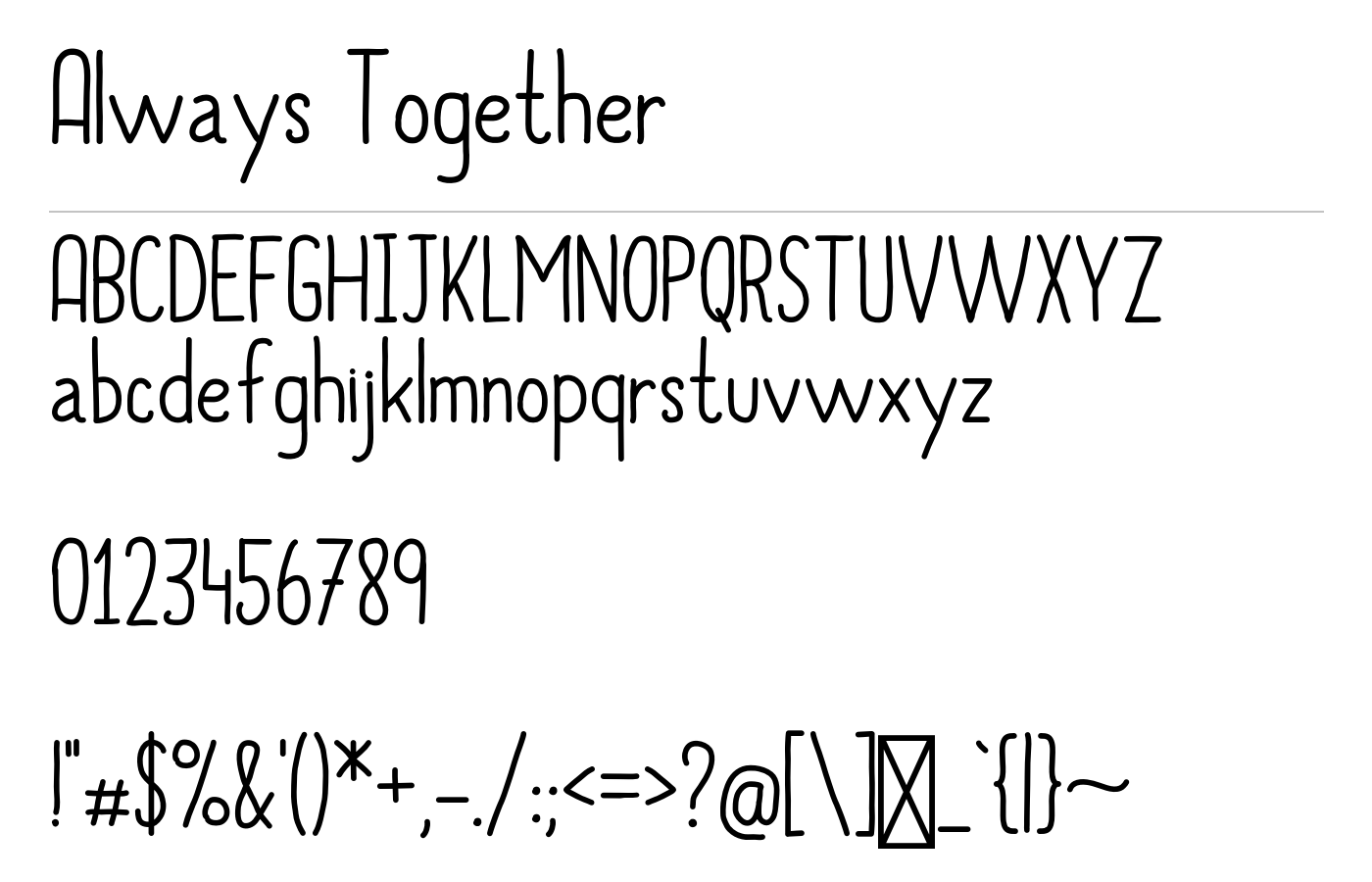
Always Together is a tall, narrow sans serif font with a playful and handwritten feel, characterized by its thin strokes and slightly irregular letterforms that add a casual, friendly touch. Its light weight and open spacing make it ideal for informal designs, such as children’s books, greeting cards, or whimsical branding, where a warm and approachable personality is desired. This font works best in headlines or short texts, bringing a charming and personal vibe to any creative project.
Always Together Font
About Always Together Font